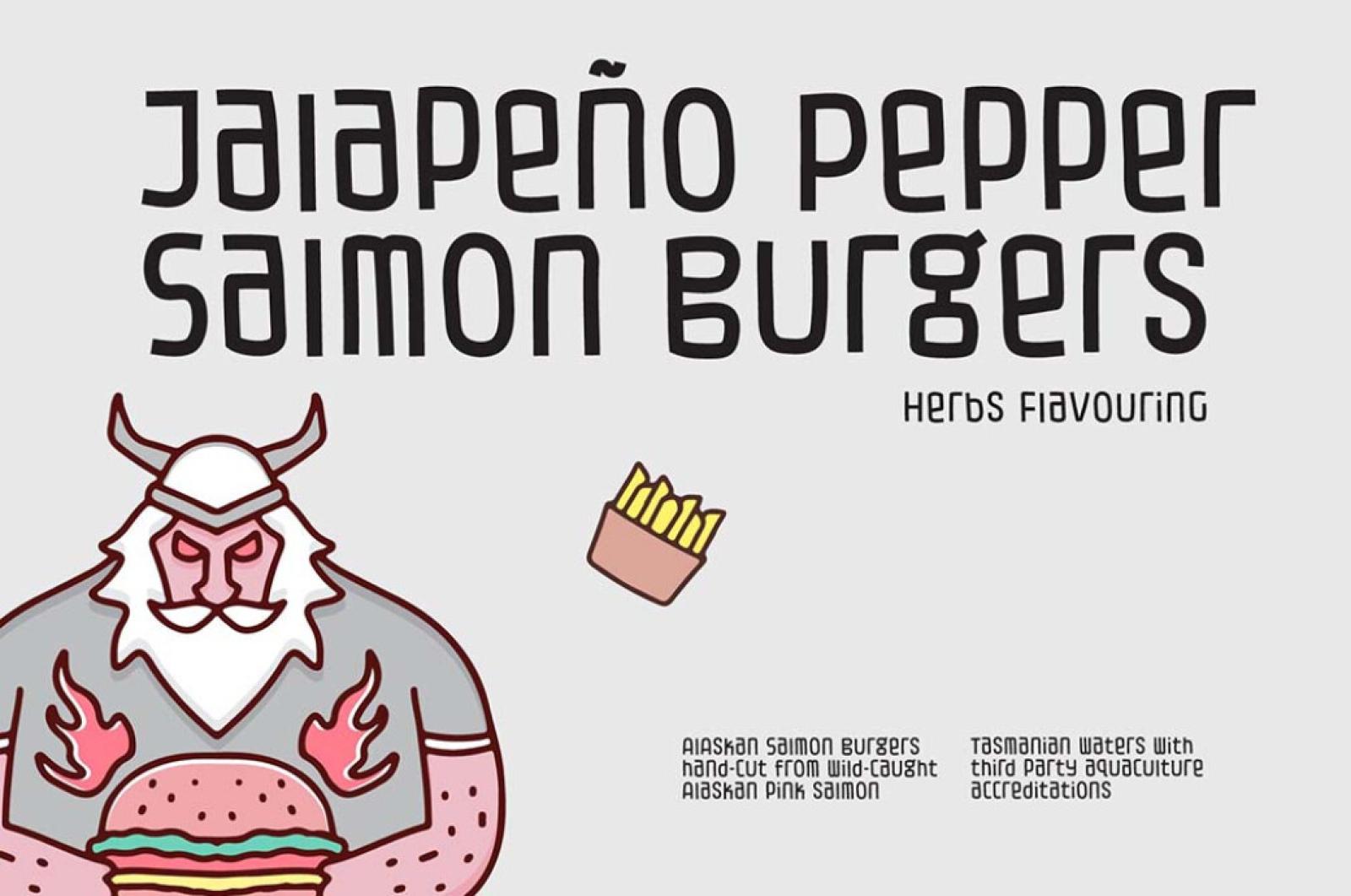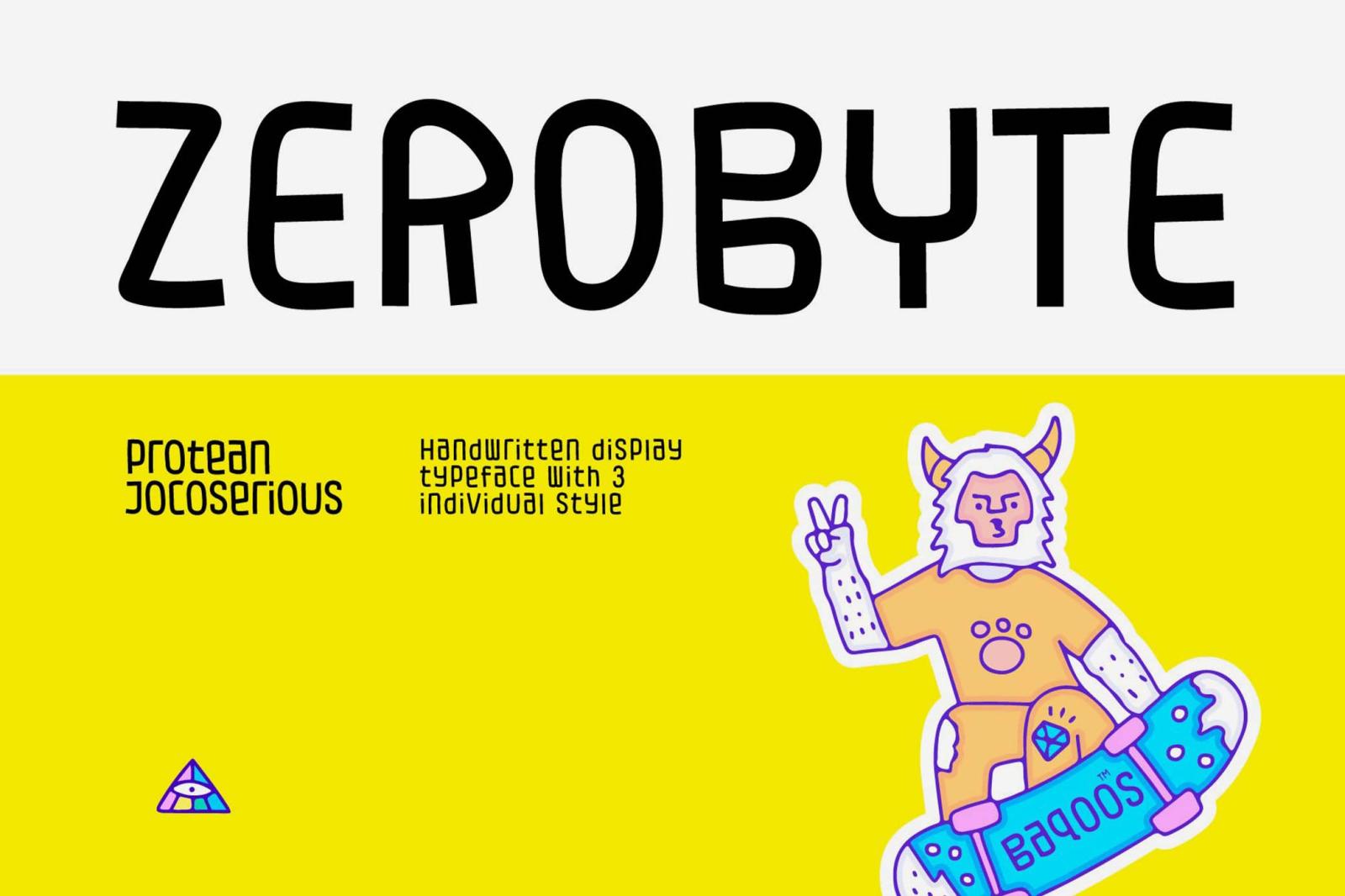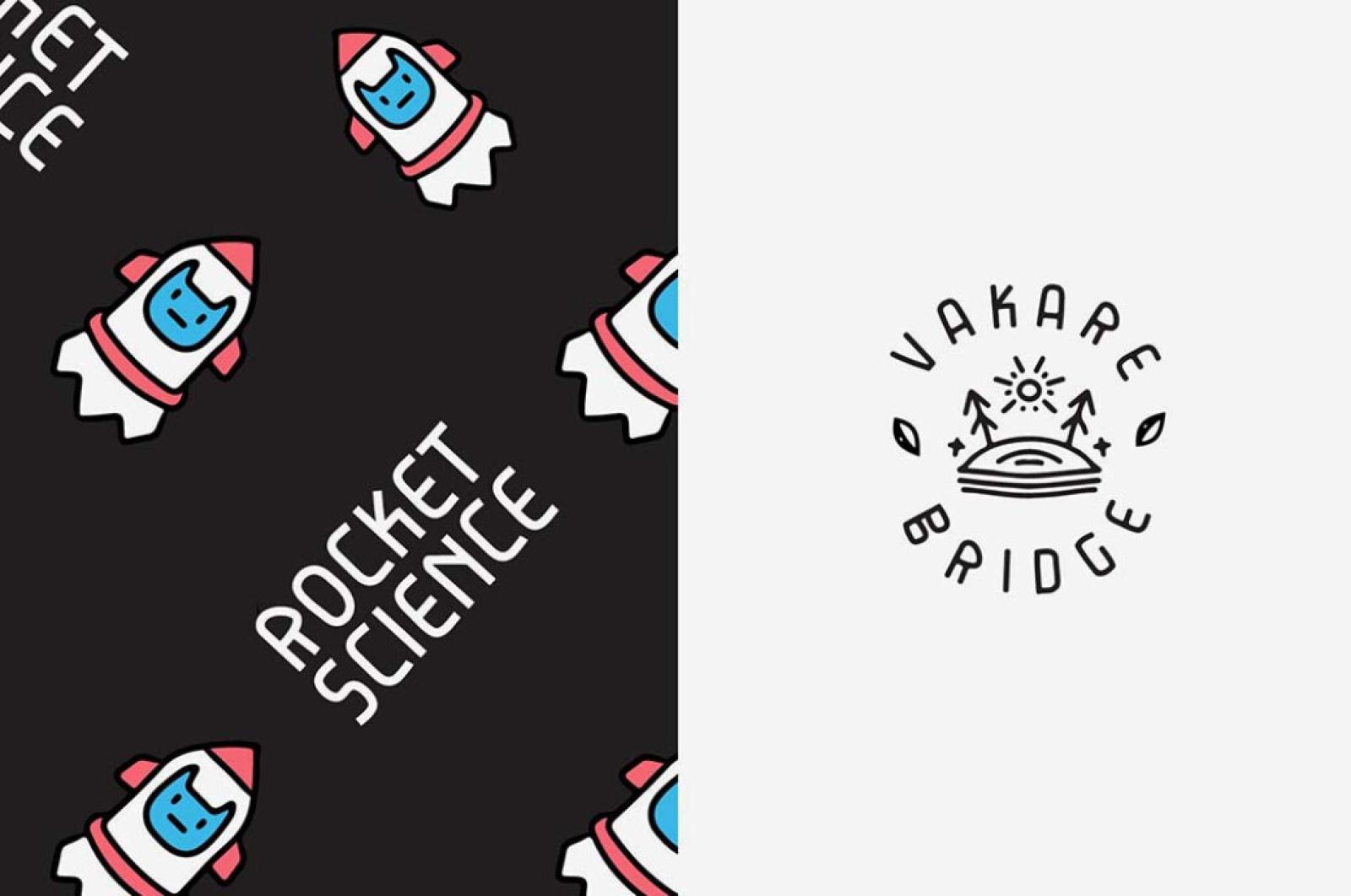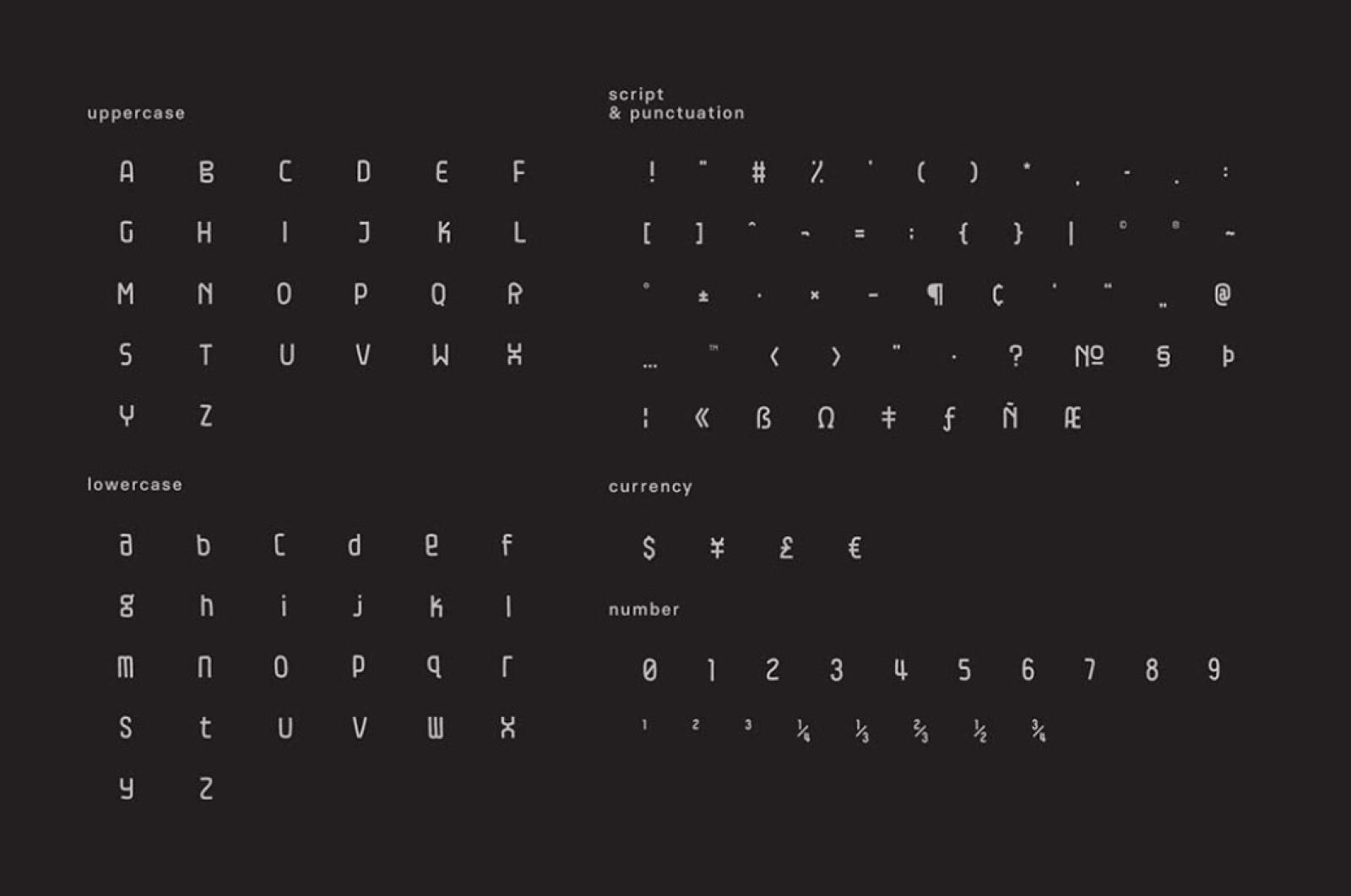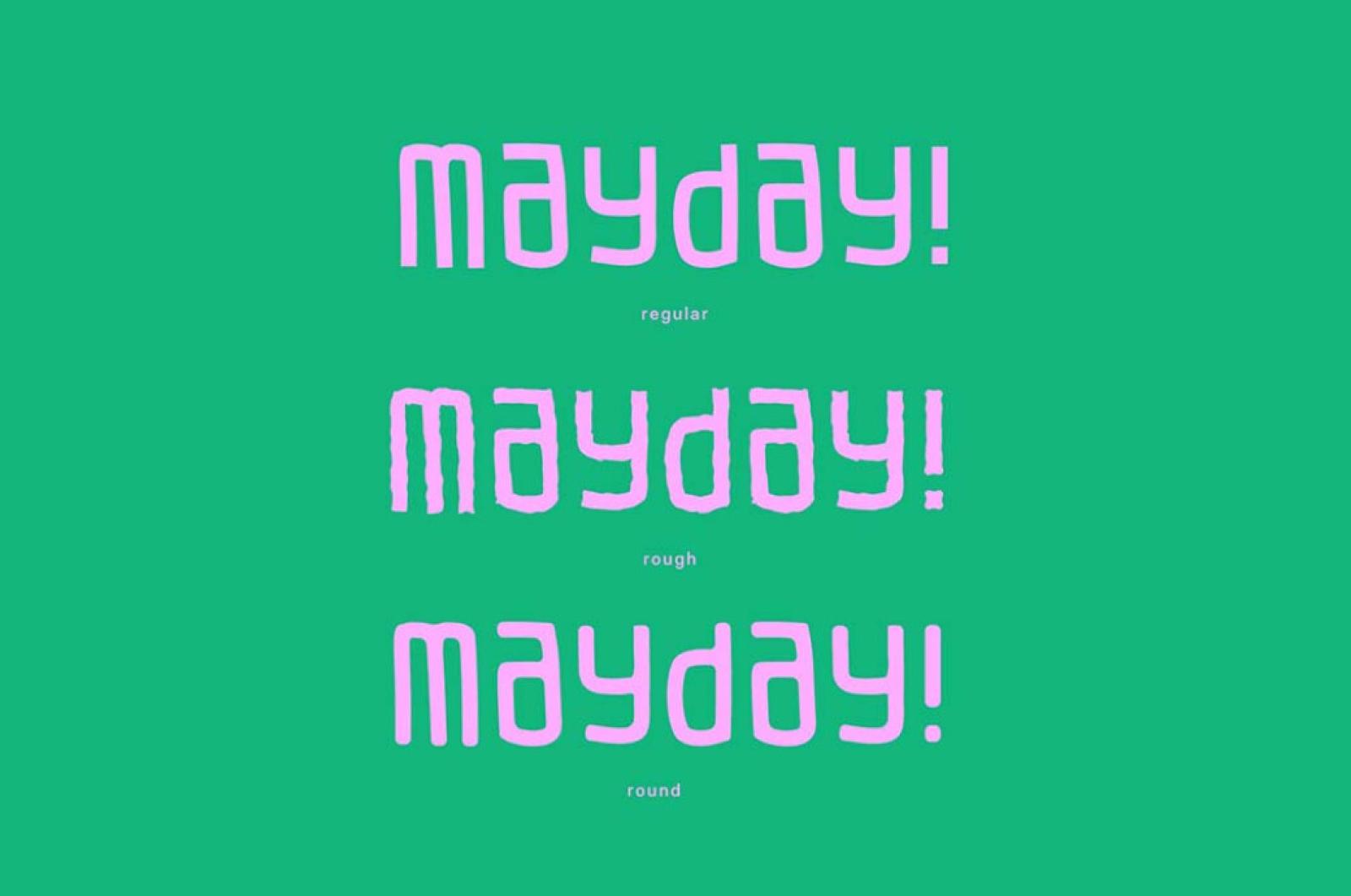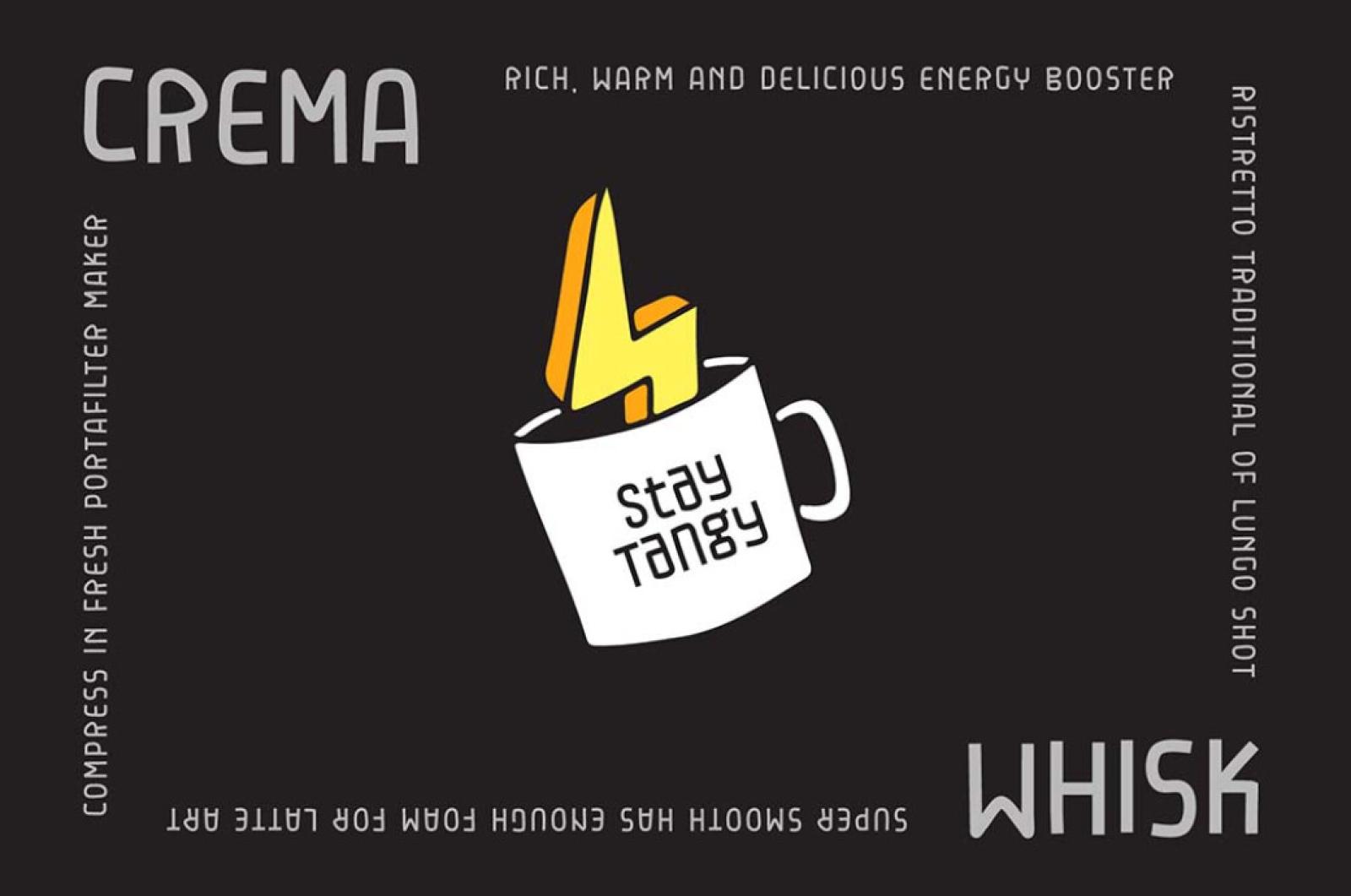
Zerobyte Font
Never thought underground style could go hand in hand with effervescent vibes? Well, Zerobyte is an example of such an extraordinary combo!
Zeobyte is an entire family with 5 font styles: light, rough, round, regular, and bold. This variety of styles relieves you of the need to search for a paring type — everything you'll require is already there! You will find over 200 glyphs, which cover upper and lowercases, numbers, punctuation, and multilingual support. The set is so extensive that you can onboard literally any project and make it spark joyful craziness.